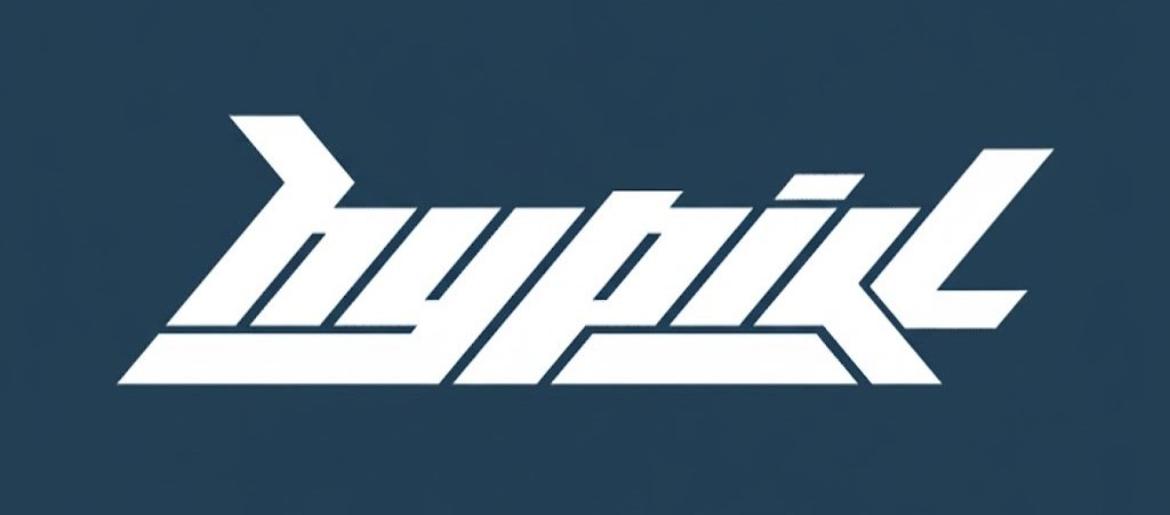
Hypik Font
Hypik Font is a futuristic display typeface featuring sharp angles and modern geometric styling. It delivers a bold, high-tech appearance suited for gaming visuals, technology branding, posters, and digital interfaces. Its dynamic structure creates strong visual impact while maintaining readability, making it a striking and contemporary option among innovative and futuristic free fonts collections.
➤ Font Name: Hypik
➤ Designer: Matt Cole Wilson
➤ Style: Display